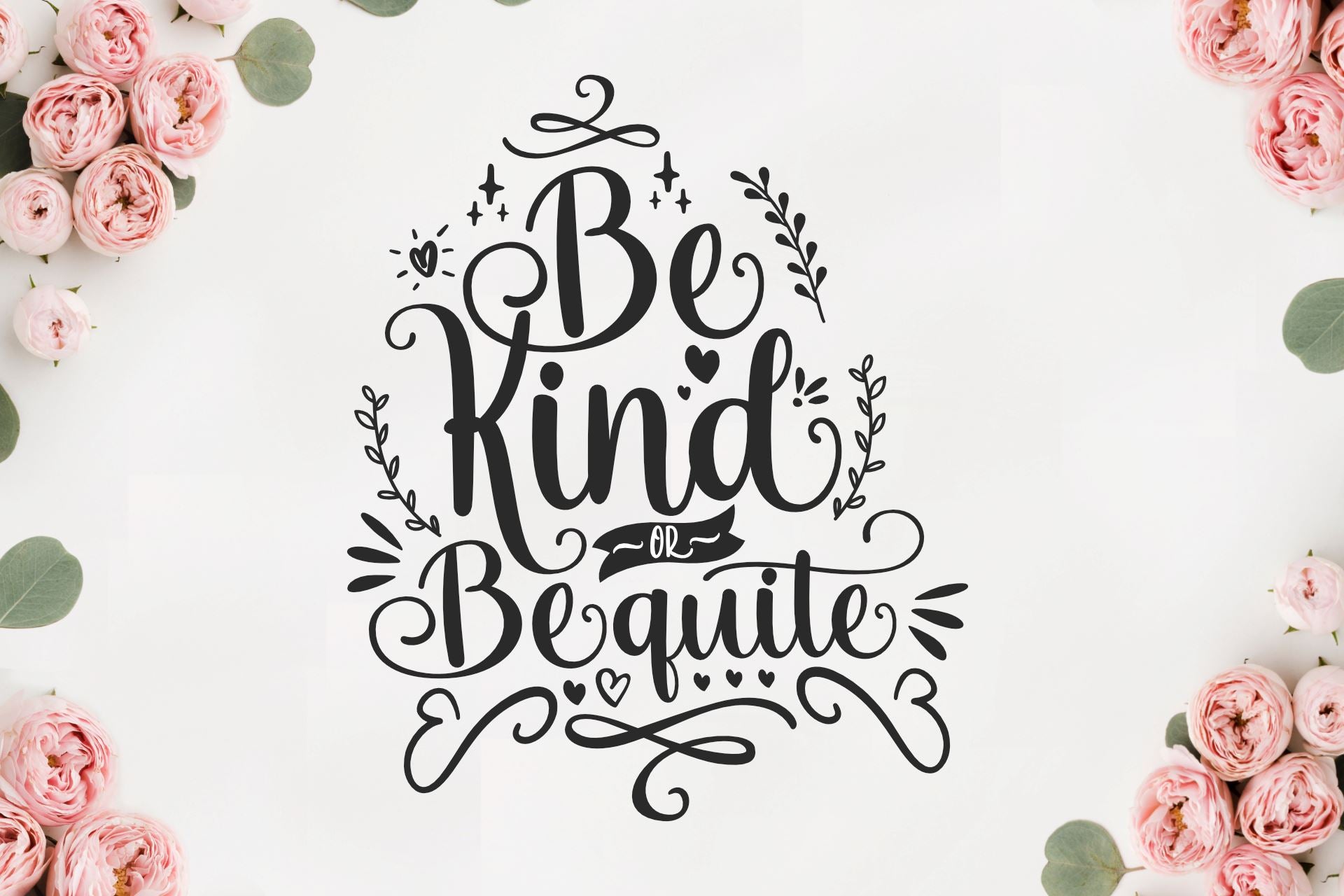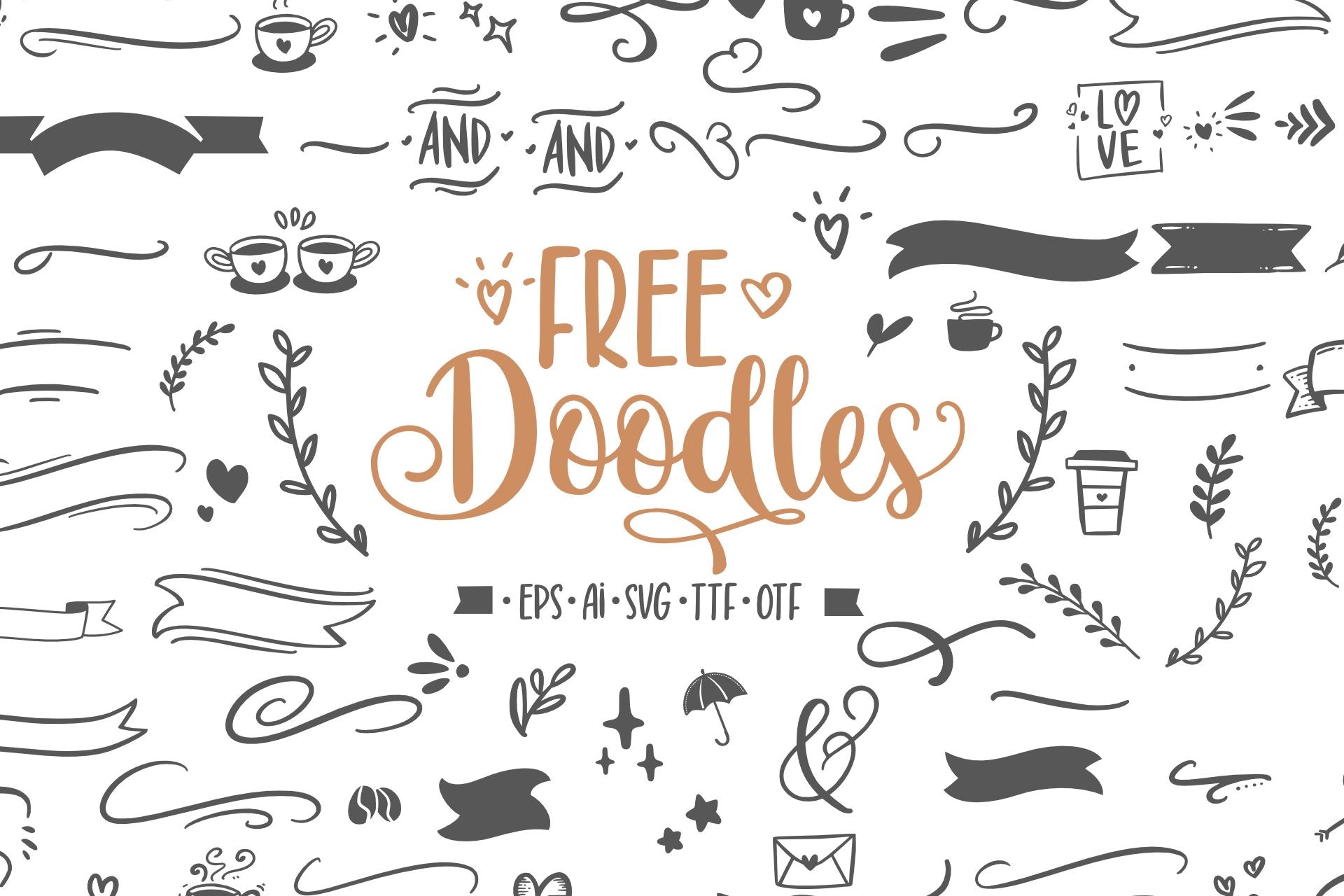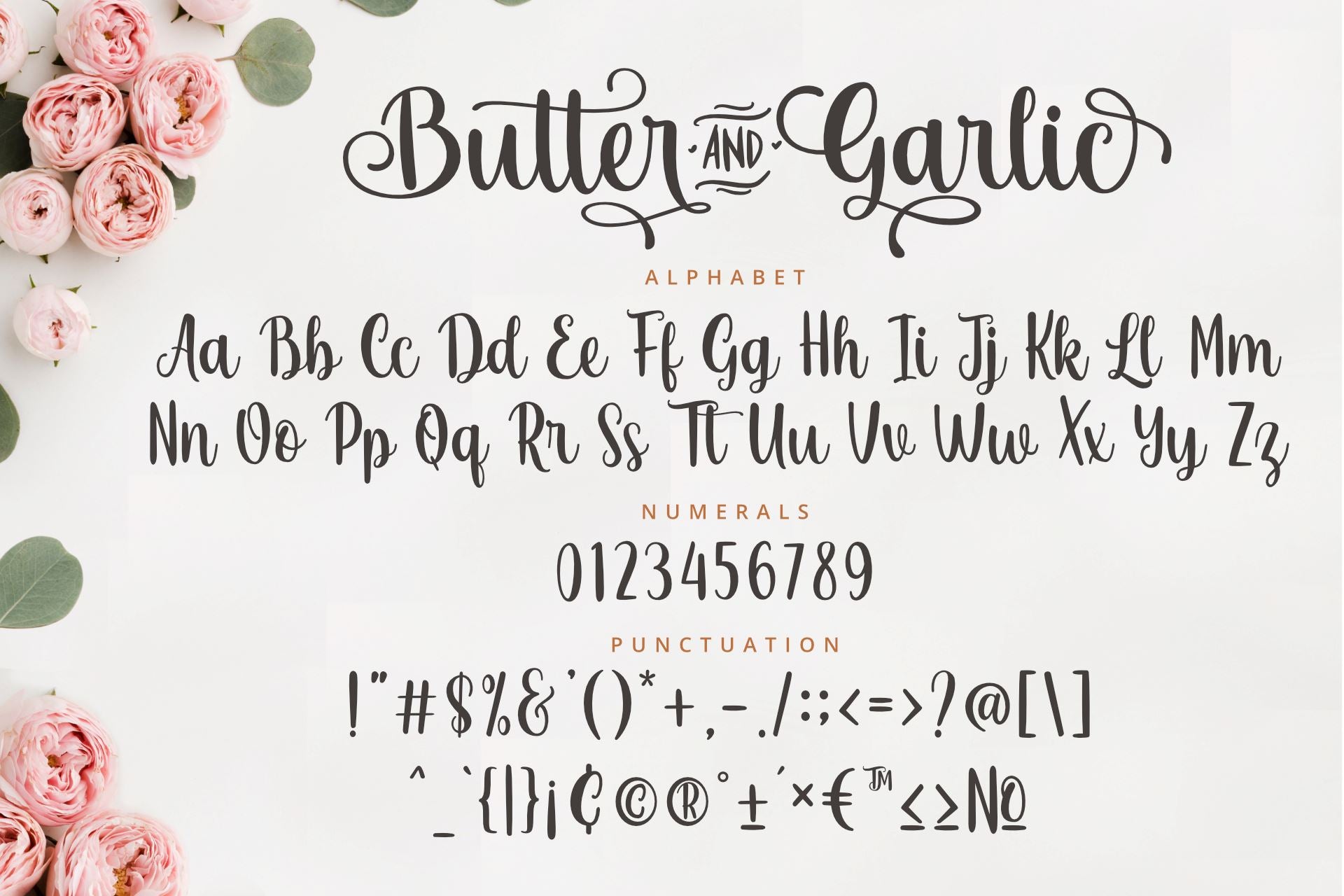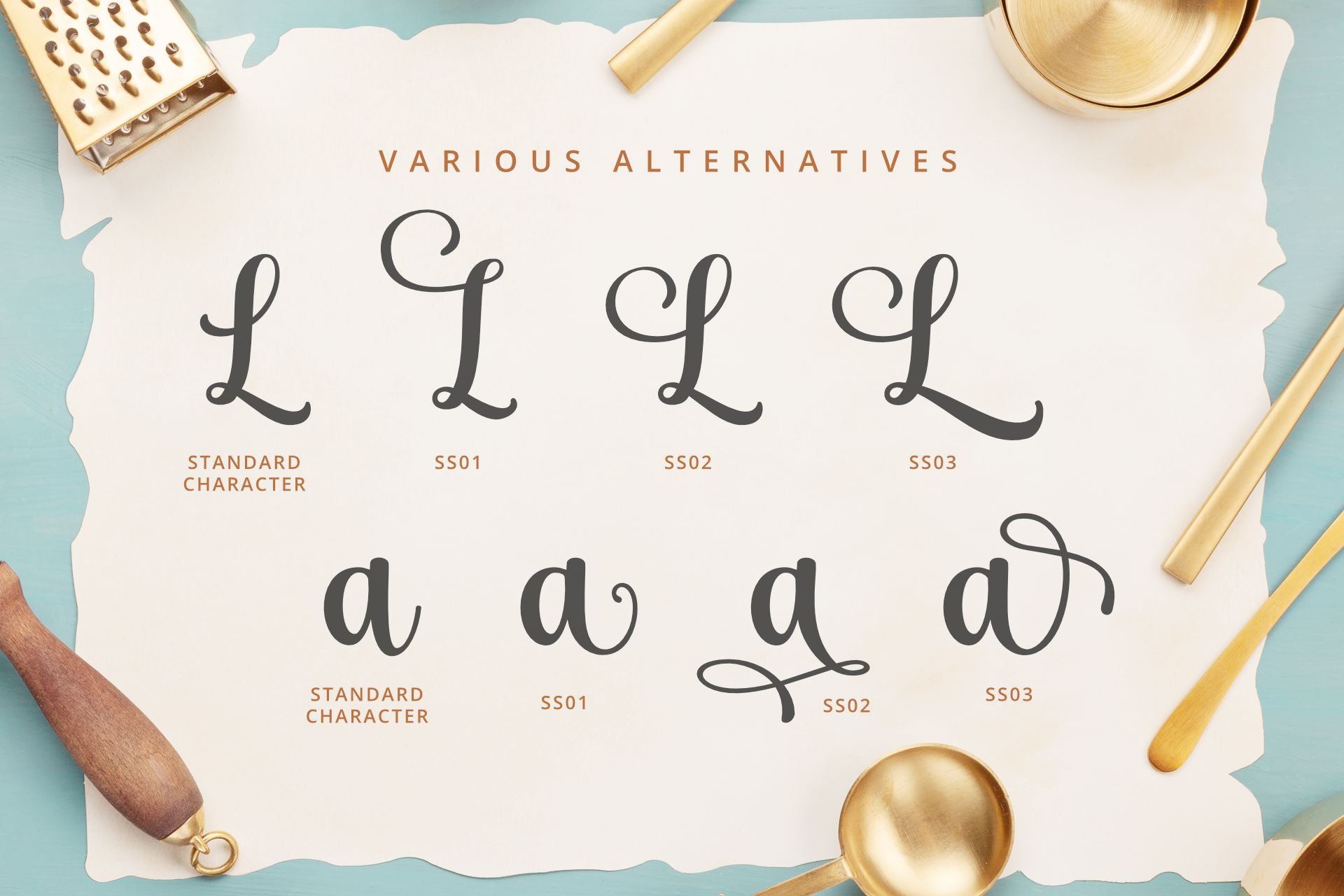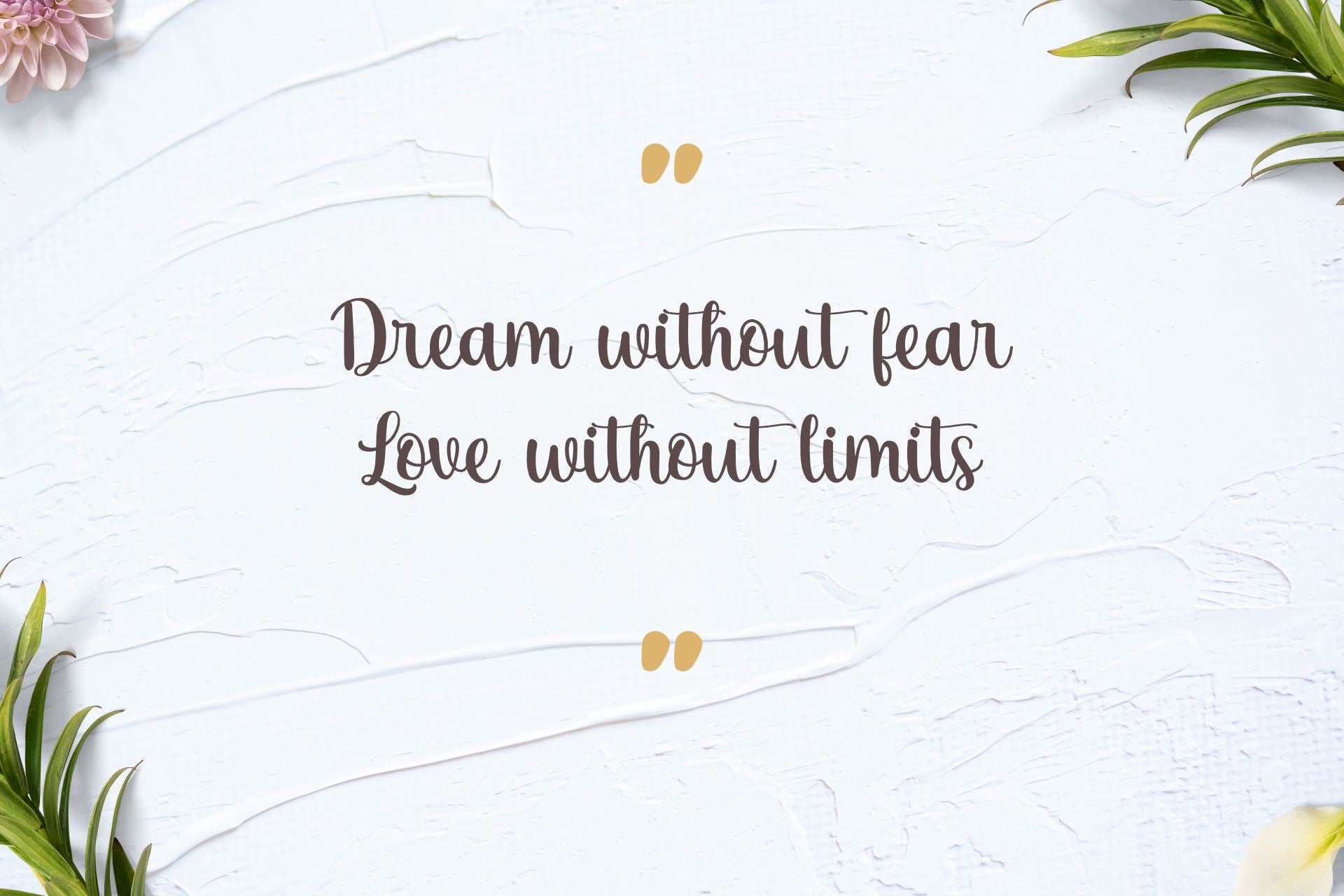
About Butter and Garlic
Butter And Garlic is a beautiful and romantic handwritten font. It looks stunning on wedding invitations, thank you cards, quotes, greeting cards, logos, business cards and every other design which needs a handwritten touch. This font is PUA encoded which means you can access all of the glyphs and swashes with ease! Get this amazing freebie and use it to create outstanding designs with it!